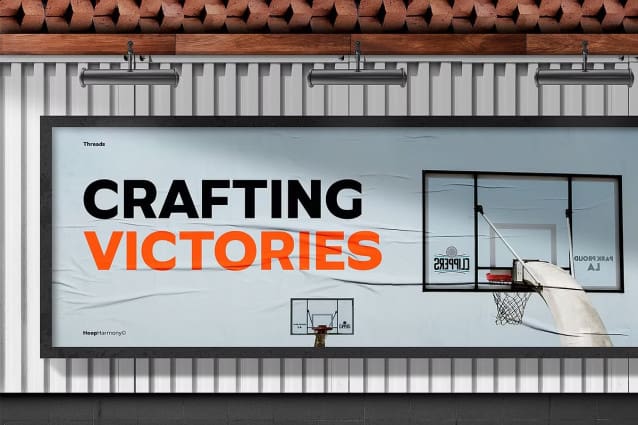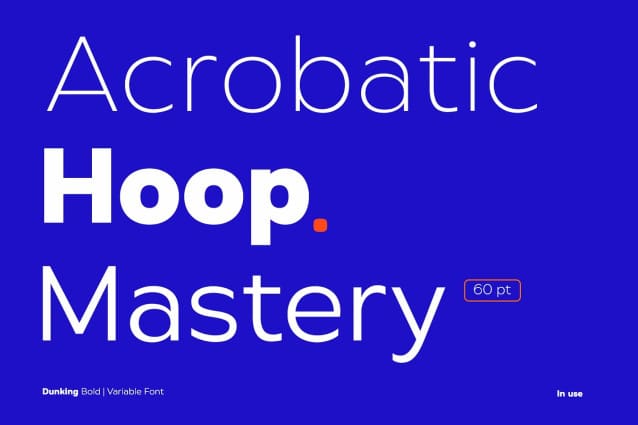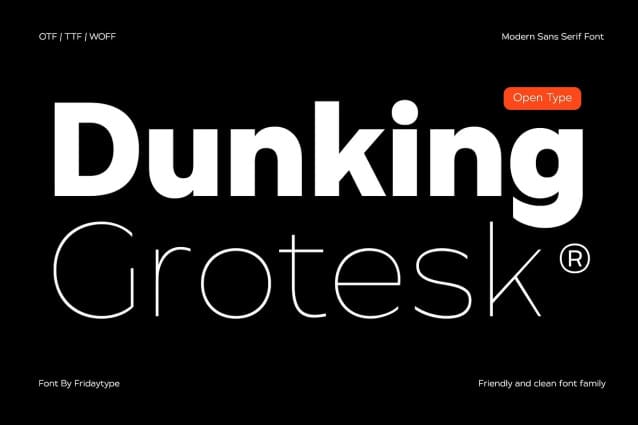
Dunking Groteks Font
Dunking Groteks Font is characterized by its fresh, clean geometry and modern feel. It has a refreshing touch, providing a supportive impression. This versatile typeface can be used in magazines, posters, branding, websites, and more.